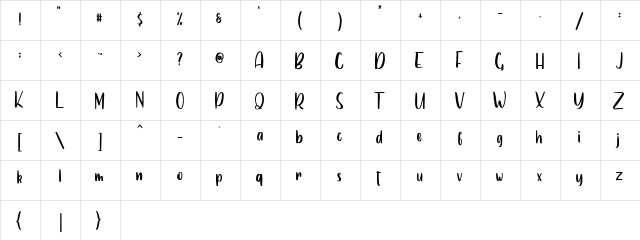
Samantha Regular
Design Context for Samantha Typeface
Samantha is a composed and adaptable typeface that performs quietly and consistently across a wide range of design contexts.